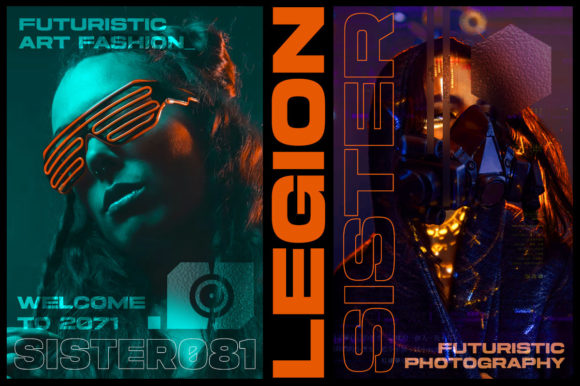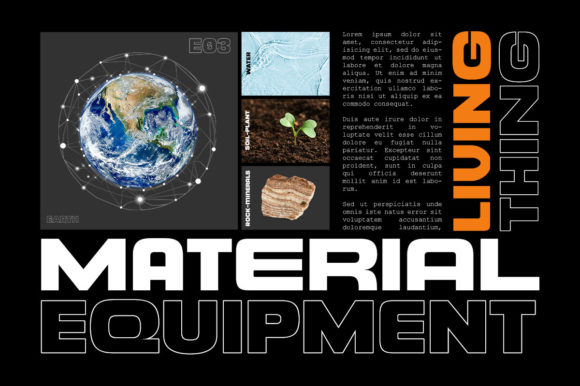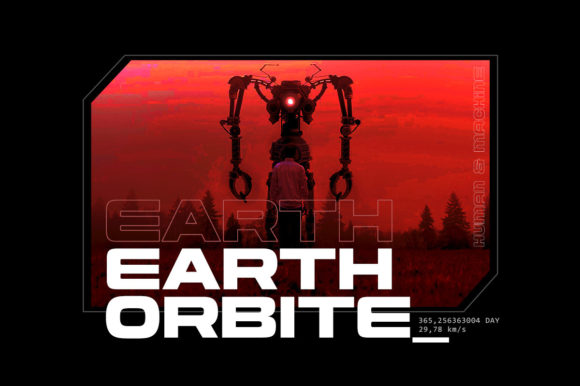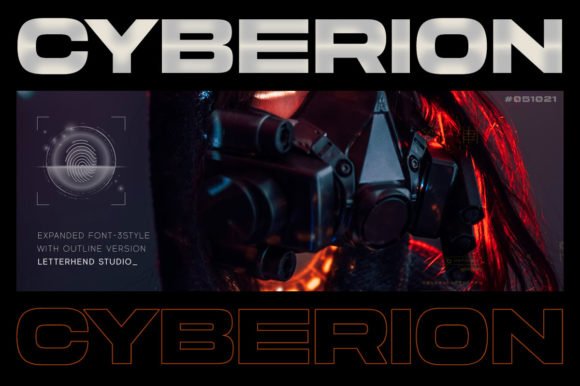
Introduction to Cyberion Font
Cyberion is a cool, bold and thick lettered display font.
It is ideal for writing web designs, business cards, or pretty much anything else that requires a futuristic touch .
Key Features of Cyberion Font